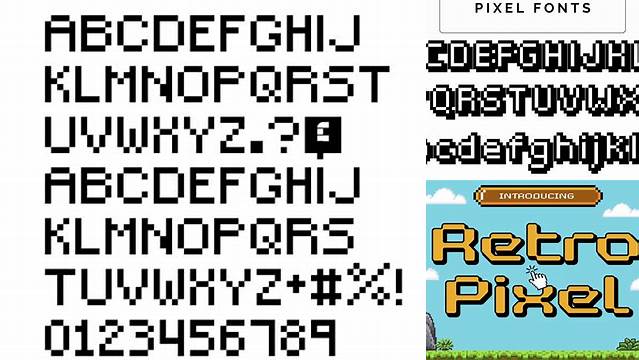
Free Pixel Fonts: A Retro Typography Guide (TTF)
Introduction: Embracing the Nostalgia of Pixel Fonts
Hey guys! Are you looking to infuse your designs with that classic, retro vibe? Then you've come to the right place! Let's talk about free pixel fonts in TTF format. Pixel fonts, with their charmingly blocky and low-resolution aesthetic, are experiencing a major comeback. They evoke nostalgia for the early days of computing and gaming, making them perfect for a wide range of projects. In this comprehensive guide, we'll delve into the world of pixel fonts, exploring their history, uses, and how to find the best free TTF options for your creative endeavors. This introduction sets the stage for understanding what pixel fonts are and why they're so popular, paving the way for a deeper dive into their practical applications and the technical aspects of using them. When we talk about pixel fonts, we're not just referring to a specific style of typography; we're talking about a design aesthetic that carries a rich history and a strong emotional connection for many. Their blocky appearance, a direct result of the limited display technology of early computers and consoles, is what gives them their unique charm. The resurgence of pixel fonts isn't just a trend; it's a testament to their timeless appeal and versatility. They're not just for retro games or vintage-themed designs; pixel fonts can add a touch of character and personality to modern projects as well. Think about websites that want to evoke a sense of nostalgia, app interfaces that aim for a minimalist aesthetic, or even branding materials that want to stand out from the crowd. The key is to use them thoughtfully and intentionally, understanding the message they convey and how they interact with the overall design. So, whether you're a seasoned designer looking to expand your typographic palette or a newcomer eager to explore the world of retro aesthetics, understanding the power and potential of pixel fonts is essential. This guide will equip you with the knowledge and resources to not only find the perfect pixel font for your project but also to use it effectively to achieve your desired design goals. Let's jump into the history of pixel fonts and why they are making such a big comeback.
What are Pixel Fonts and Why Use Them?
So, what exactly are pixel fonts? Simply put, they are fonts designed with a limited number of pixels, typically arranged on a grid. This gives them their characteristic blocky appearance. Back in the day, pixel fonts were the only option for displaying text on early computer screens and gaming consoles due to technological constraints. But now, they're a stylistic choice! Using pixel fonts can instantly add a retro or 8-bit feel to your projects. They're perfect for video games, websites, logos, and any design where you want to evoke a sense of nostalgia. Imagine the opening credits of a classic arcade game or the interface of an old-school operating system – that's the kind of vibe pixel fonts can bring. But why use them in a world of high-resolution displays and smooth, elegant typefaces? The answer lies in their unique ability to capture a specific aesthetic and evoke certain emotions. Pixel fonts aren't just about looking retro; they're about telling a story. They transport us back to a time when technology was simpler, more tangible, and perhaps even more charming. For designers, this means that pixel fonts can be a powerful tool for creating designs that resonate with a particular audience or convey a specific message. They can be used to create a sense of playfulness, authenticity, or even a touch of rebellion against the sleek, polished aesthetics that dominate much of modern design. Consider a website for a retro gaming community or an app that aims to capture the essence of 8-bit gaming. In these cases, a pixel font wouldn't just be a stylistic choice; it would be an essential element of the overall design language, helping to create a cohesive and immersive experience for the user. Moreover, the limitations of pixel fonts – the constraint of working within a small grid – can actually be a source of creative inspiration. Designers are forced to think more strategically about how they use space and form, resulting in designs that are both visually striking and highly functional. This challenge can lead to innovative solutions and a unique visual identity that sets a project apart from the crowd. So, when you're thinking about typography for your next project, don't dismiss the power of the pixel. They're more than just a relic of the past; they're a vibrant and versatile tool that can help you create designs that are both memorable and meaningful. Let's explore the different ways you can find these free pixel fonts.
Choosing the Right Pixel Font: Key Considerations
Okay, you've found a bunch of free pixel font TTF files, but how do you choose the right one? Here are some key considerations:
- Readability: This is crucial. Even though pixel fonts are inherently blocky, some are more legible than others. Consider the size at which the font will be used and choose one that remains clear and easy to read. Legibility is the cornerstone of good typography, and it's even more critical when working with pixel fonts. Their low-resolution nature can make them challenging to read, especially at small sizes. Therefore, careful consideration must be given to the design of the font and how it will be used in the final product. A font that looks great in a preview might become illegible when implemented in a real-world scenario, so it's crucial to test it thoroughly before making a final decision. When assessing legibility, consider factors such as the size of the individual pixels, the spacing between characters, and the overall shape of the letters. Some pixel fonts are designed with wider characters and more generous spacing, making them easier to read at smaller sizes. Others may prioritize a more stylized or decorative appearance, which can compromise legibility if not used carefully. It's also important to consider the intended audience and the context in which the font will be used. For example, a pixel font used in a video game might need to be highly legible, even at low resolutions, to ensure that players can easily read instructions and dialogue. On the other hand, a pixel font used in a logo or branding element might have more leeway in terms of legibility, as it will typically be used at a larger size and in a more visually prominent context. In addition to the design of the font itself, the background color and contrast can also significantly impact legibility. A pixel font that looks great on a white background might become difficult to read on a dark or patterned background. Therefore, it's essential to test the font in a variety of contexts and with different color combinations to ensure that it remains legible. Ultimately, the best way to assess the legibility of a pixel font is to try it out in your design and get feedback from others. Ask people to read text set in the font at different sizes and in different contexts, and see if they have any difficulty. Their feedback can provide valuable insights and help you to make an informed decision. So, before you get too caught up in the aesthetics of a pixel font, take a step back and consider its legibility. A font that is visually appealing but difficult to read is ultimately a poor choice, as it will detract from the overall user experience and message. Let's keep exploring what else we need to think about!
- Style and Tone: Does the font's style match the overall tone and theme of your project? A bold, blocky font might be great for an action game, while a more delicate pixel font could work well for a retro-inspired website. The style and tone of a pixel font are crucial considerations when selecting the right typeface for your project. A font's style conveys a specific mood and character, and it needs to align seamlessly with the overall aesthetic and message of your design. Mismatched fonts can create a jarring effect, undermining the impact of your work. When evaluating pixel fonts, think about the emotions and associations they evoke. A bold, blocky font often conveys a sense of power, energy, and retro gaming nostalgia. It's a natural fit for action-oriented games, industrial-themed designs, or anything that needs a strong, assertive visual presence. On the other hand, a more delicate, rounded pixel font might project a sense of playfulness, cuteness, or whimsy. These fonts are well-suited for projects targeting younger audiences, designs with a lighthearted theme, or anything that aims to create a sense of warmth and approachability. Consider the historical context of pixel fonts as well. Their roots in early computer displays and video game consoles give them a strong association with the 8-bit and 16-bit eras. If your project is intentionally referencing this period, a classic pixel font can be a powerful way to enhance the retro vibe. However, if you're aiming for a more modern or futuristic look, you'll need to be more selective in your font choice. Some pixel fonts have been designed with a contemporary twist, incorporating geometric shapes, minimalist lines, or other modern design elements. These fonts can bridge the gap between retro aesthetics and modern sensibilities, allowing you to create designs that are both nostalgic and forward-looking. Think about the specific elements of your design and how the font will interact with them. Will the font be used for headings, body text, or both? Will it be paired with other fonts, and if so, how will they complement each other? How will the font look in different colors and sizes? By considering these questions, you can narrow down your options and choose a font that works harmoniously with the rest of your design. Ultimately, the best way to determine if a pixel font's style and tone are a good fit for your project is to experiment. Try out different fonts in your design and see how they feel. Get feedback from others and be willing to make adjustments if necessary. The right font can make all the difference in conveying the intended message and creating a cohesive, visually appealing design. Let's check what additional aspect can affect the right choice!
- Character Set: Does the font include all the characters you need? Some free fonts have limited character sets, so make sure it supports the letters, numbers, and symbols you'll be using. The character set of a pixel font is a crucial consideration that often gets overlooked. It refers to the range of characters included in the font, such as letters, numbers, punctuation marks, symbols, and special characters. A limited character set can significantly restrict the usability of a font, making it unsuitable for projects that require a wide range of characters or support for multiple languages. When selecting a pixel font, carefully examine the character set to ensure that it includes all the glyphs you need for your project. At a minimum, it should include the basic alphabet (both uppercase and lowercase), numerals, and common punctuation marks. If your project involves writing in a language other than English, you'll need to make sure that the font supports the necessary accented characters and diacritics. Some fonts may also include symbols, mathematical operators, currency symbols, and other special characters. These can be particularly useful for projects that involve technical documentation, data visualization, or financial information. Pixel fonts, due to their low-resolution nature, can be challenging to design with extensive character sets. The limited number of pixels available for each character makes it difficult to create complex glyphs while maintaining legibility. As a result, many free pixel fonts have smaller character sets compared to more traditional fonts. Before committing to a specific pixel font, it's always a good idea to test it out by typing out a sample of the text you'll be using in your project. This will allow you to identify any missing characters or glyphs and ensure that the font meets your needs. If you discover that a font lacks certain characters, you may be able to find a similar font with a more complete character set or explore options for creating custom glyphs. Custom glyph creation can be a complex process, but it can be a worthwhile investment if you need a specific character that is not available in any existing font. In addition to the characters themselves, consider the consistency and quality of the glyphs within the character set. A well-designed pixel font will have a consistent style and appearance across all of its characters, ensuring a cohesive and professional look. Inconsistent glyphs can detract from the overall design and make the font appear unprofessional. So, when choosing a pixel font, take the time to thoroughly review the character set and ensure that it meets your project's requirements. A font with a complete and well-designed character set will provide greater flexibility and ensure that your text looks its best. Let's wrap this up by checking the legal side of fonts!
- Licensing: Always check the font's license before using it. Some fonts are free for personal use only, while others can be used commercially. Make sure the license allows for your intended use. Licensing is a critical aspect of using any font, including pixel fonts, and it's essential to understand the terms and conditions before incorporating a font into your project. Font licenses dictate how a font can be used, including whether it's permissible for personal or commercial purposes, whether it can be embedded in digital documents or websites, and whether it can be modified or redistributed. Ignoring font licenses can lead to legal issues, financial penalties, and damage to your reputation. Therefore, it's always best to err on the side of caution and ensure that you're using fonts legally. There are several types of font licenses, each with its own set of restrictions and permissions. Some common types of licenses include: * Freeware/Public Domain: These fonts are free to use for both personal and commercial purposes, and there are typically no restrictions on modification or redistribution. However, it's always a good idea to double-check the specific terms of the license to be sure. * Shareware/Demo: These fonts are often offered for free for a limited time or with limited functionality. To use the font commercially or access the full feature set, you may need to purchase a license. * Personal Use Only: These fonts are free for personal, non-commercial use. If you intend to use the font in a commercial project, you'll need to purchase a commercial license. * Commercial License: These licenses grant you the right to use the font in commercial projects, such as logos, websites, and printed materials. The specific terms of the license may vary depending on the font foundry or designer. * Open Source: These fonts are typically licensed under open-source licenses, such as the SIL Open Font License (OFL). Open-source licenses grant you broad permissions to use, modify, and distribute the font, even for commercial purposes. However, some licenses may require attribution or have other specific conditions. When downloading a free pixel font, take the time to carefully read the licensing information provided by the font designer or foundry. This information is usually included in a text file or on the font's download page. If you're unsure about the terms of a license, it's always best to contact the font designer or foundry directly for clarification. If you're working on a project with a client, it's also essential to discuss font licensing with them and ensure that they understand the terms and conditions. You may need to purchase a commercial license on behalf of your client or advise them on the appropriate licensing options. In addition to understanding the legal aspects of font licensing, it's also important to respect the creative work of font designers and foundries. Font design is a skilled and time-consuming process, and designers deserve to be compensated for their work. If you're using a font commercially, consider purchasing a license to support the designer and ensure the sustainability of font design. In conclusion, font licensing is a crucial consideration when choosing a pixel font for your project. By understanding the different types of licenses and carefully reviewing the terms and conditions, you can ensure that you're using fonts legally and ethically. Next up, we'll discuss how to install and use your chosen font in your favorite design software. So, let's dive in!